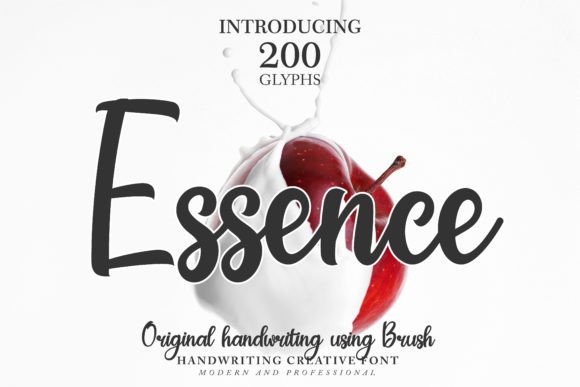
Step into the world of Essence Font, a script font that dances across the page with its graceful strokes and captivating charm. Created by the talented Arief Indra Pratama, Essence is more than just a font; it's an art form, a tool that transforms words into masterpieces.
With Essence, your designs will blossom into works of art. Its flowing lines add a touch of elegance and sophistication, making it the perfect choice for wedding invitations, social media posts, and logos. Unleash your creativity and let Essence guide your designs to new heights of beauty.
Imagine your brand adorned with Essence, its distinctive characters adding a touch of personality and flair. Let Essence be your voice, conveying your message with grace and impact. Your advertisements, product packaging, and labels will stand out from the crowd, leaving a lasting impression on your customers.
Essence is not just a font; it's a story waiting to be told. Whether you're designing a wall display for your home or creating stationery for a special occasion, Essence will add a touch of magic to your project. Your words will come alive, evoking emotions and capturing hearts.
In the realm of typography, Essence reigns supreme. Its impressive design makes it the perfect choice for photography, watermarks, and invitations. With Essence, your creations will shine, leaving a lasting legacy of beauty and inspiration.